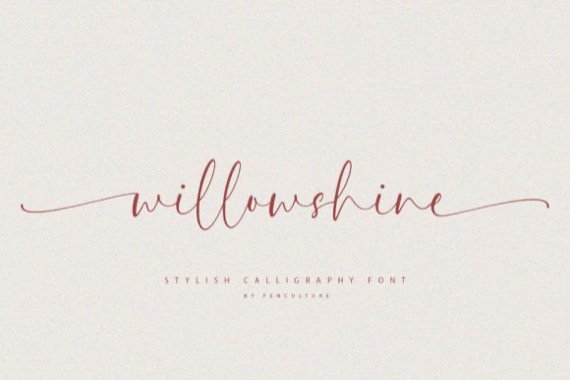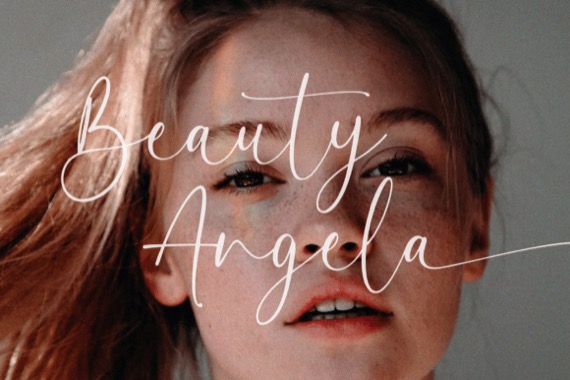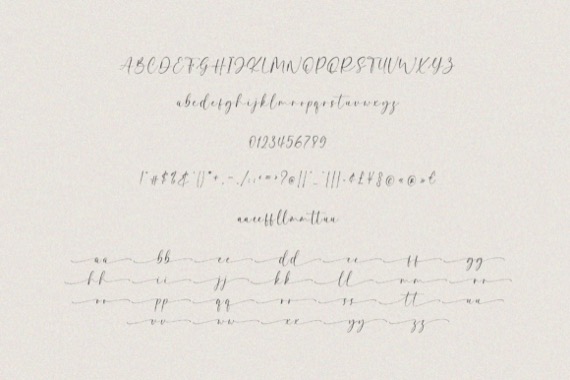
A fresh and cool typeface from Pen Culture, Willowshine is a modern and stylish calligraphy font that come with authentic beginning and ending swashes, this font perfect for wedding invitation, branding and many more. This font also has a smooth curve that make this font joyful.
Willowshine Handwritten Calligraphy Font